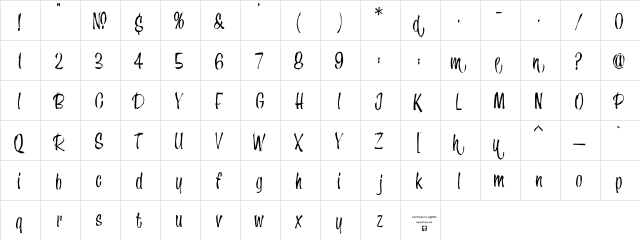
LHF Speedstyle I Regular
| Foundry | Arthur Vanson for Letterhead Fonts |
| Designer | Arthur Vanson |
Design Context for LHF Speedstyle I Typeface
LHF Speedstyle I is a composed and adaptable typeface that performs quietly and consistently across a wide range of design contexts.